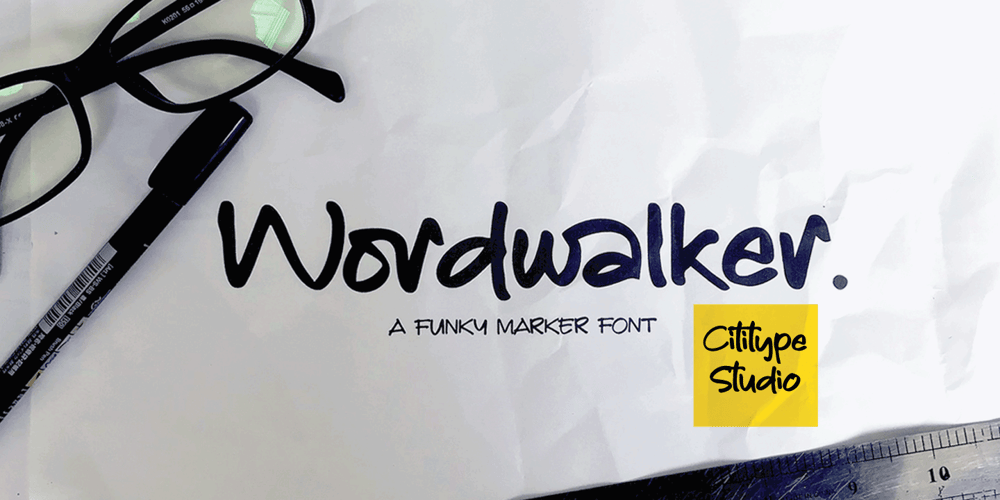
Wordwalker Font Family was designed by Muhammad Ridha Agusni, Siti Saribanon Nurjannah and published by Cititype. Wordwalker contains 1 styles and family package options. Wordwalker is a freehand casual marker script that designed to appear as if it was written by wide marker. This original look will appeal to a wide range of crafty ideas, from letterheads and titles, to stationery. A clean legible style yet friendly & fun.Wordwalker features extended characters, containing West European diacritics & ligatures, making it suitable for international environments & publications.